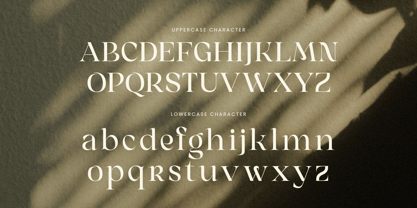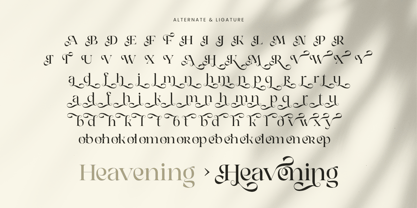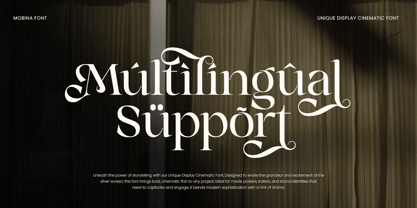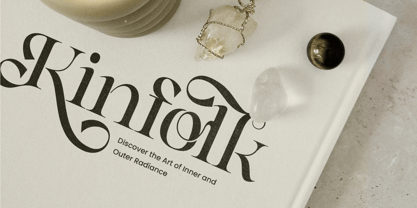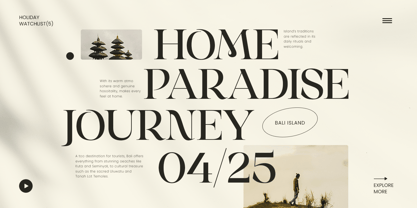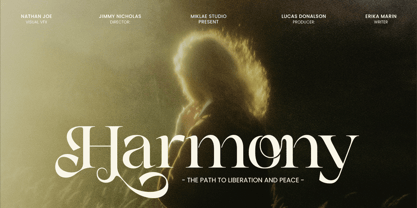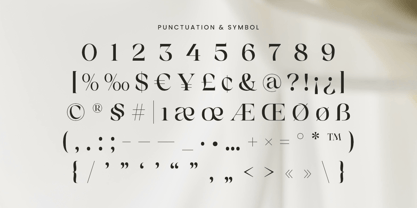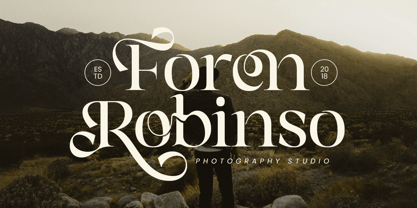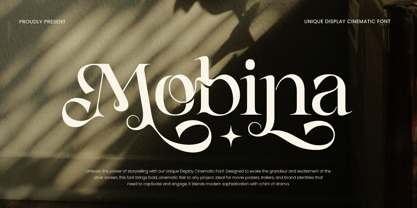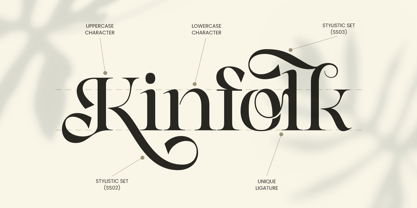
Mobina
por Sensatype Studio
La familia tipográfica Mobina fue diseñada por Zamroni Hamzah y publicada por Sensatype Studio. Mobina contiene 1 estilos. Más información sobre esta familia
Mobina is a unique cinematic display font crafted to bring drama and sophistication to any project. With its stylish letterforms and striking presence, it’s ideal for designers seeking a memorable font for titles, logos, and brand storytelling.
Inspired by cinematic aesthetics, Mobina captures the essence of visual impact. Its refined structure and artistic flair make it perfect for movie posters, editorial headlines, fashion branding, and luxury campaigns that demand attention.
Whether you're designing for screen or print, Mobina delivers a unique, elegant typographic voice that leaves a lasting impression.
Mobina – Unique Display Cinematic Font Features
• Unique cinematic display style
• Classy ligature & alternate characters
• Punctuation, numbers, and symbols included
• Uppercase and lowercase letters
• OpenType features for creative typography
Diseñadores: Zamroni Hamzah
Fundición: Sensatype Studio